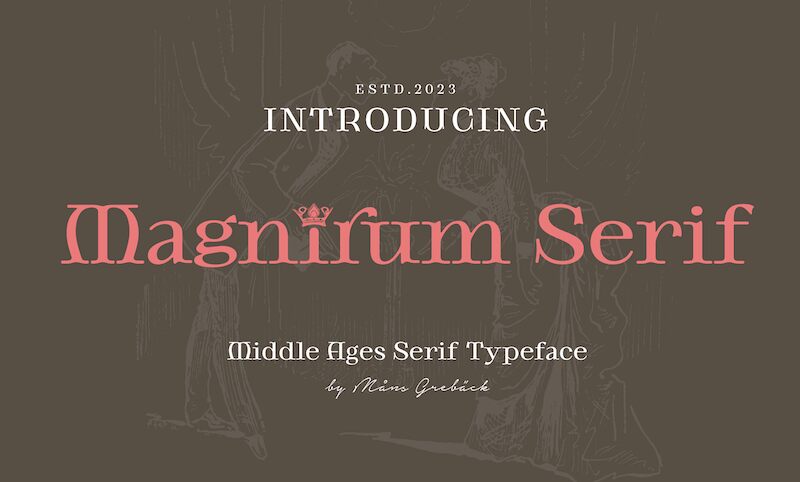
Magnirum Serif, designed by the renowned Mans Greback, is a gothic serif typeface that captures the essence of medieval charm and sophistication. With its semi-expanded width, this typeface strikes an admirable balance between readability and decorative allure. The characters display a notable elegance that harks back to historic typography, while still maintaining a crisp modern edge suitable for contemporary design.
The font’s distinct serifs and graceful curves lend it a classic yet bold appearance, making it an ideal choice for projects aiming to evoke a sense of antiquity or grandeur. Whether used in branding, editorial design, or creative arts, Magnirum Serif promises to infuse your work with an aesthetic that is both regal and accessible.
Its medieval flair is not just a nod to the past but an invitation to designers to explore the fusion of historical beauty with modern functionality. Magnirum Serif stands out as not only visually appealing but also versatile in its application across various mediums and themes.
Add symbol # after any letter to place a crown on top of it.
Example: Cro#wn